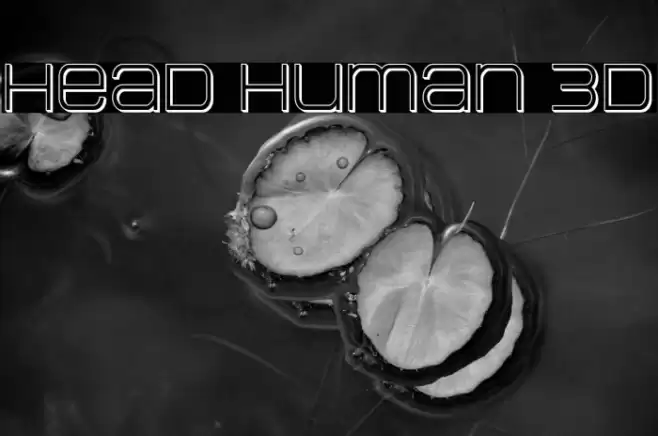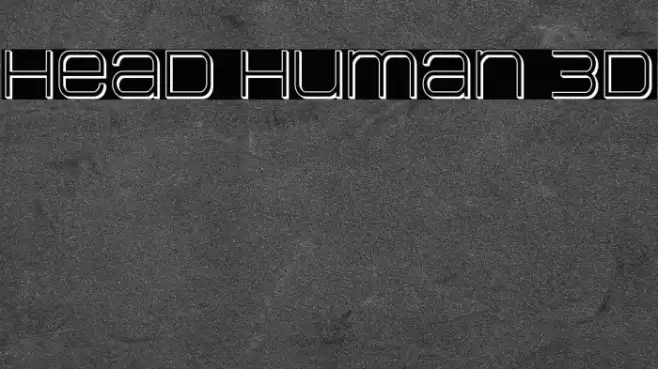
Head Human 3D Font
Head Human 3D Description
This font features a modern, geometric design with a three-dimensional effect. The characters are outlined, giving them a hollow appearance that adds depth and interest. The lines are clean and precise, creating a futuristic and technical aesthetic. Each letter and number is crafted with uniform thickness, contributing to a cohesive look. The font includes both uppercase and lowercase letters, numerals, and a variety of special characters, making it versatile for different design needs. Its unique style is ideal for projects that require a contemporary and innovative touch.
A modern, geometric font with a 3D outlined design from Uncategorized fonts.